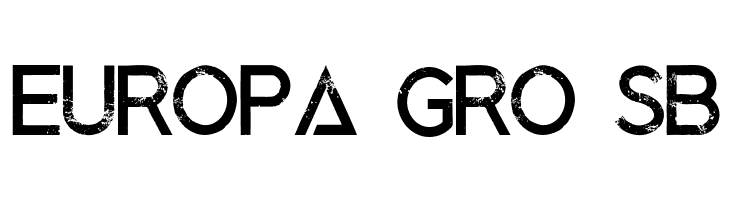
A dynamic, brush-style font with an expressive and handcrafted appearance.
A traditional Blackletter font with ornate, medieval-inspired design.
A decorative Blackletter font with intricate and ornate gothic design.
A bold, geometric font with sharp angles and a modern industrial style.
A whimsical and artistic script font with a handwritten appearance.
An artistic script font with flowing, cursive-like lowercase letters.
A modern, geometric font with a futuristic and structured design.
A bold, distressed font with a grunge, textured style.
A bold, distressed font with a gritty, urban aesthetic.
A bold, angular font inspired by ancient runic alphabets, perfect for decorative use.
A bold, italicized font with angular, runic-inspired design.
An angular, italicized font with a runic, ancient script style.
A bold, grunge-style font with a distressed and dynamic appearance.
A bold, distressed font with a vintage, textured appearance.
A bold, distressed font with a grunge, vintage aesthetic.
A bold, distressed font with a gritty, vintage punk aesthetic.
A bold, distressed font with a gritty, urban aesthetic.
A distressed, script-style font with a vintage, textured appearance.
A geometric, zigzag-patterned font with a bold and artistic style.
A decorative set of diamond and gemstone icons in diverse styles.
A bold, geometric font with sharp, angular design elements.
A bold, hand-drawn font with a playful, irregular style.